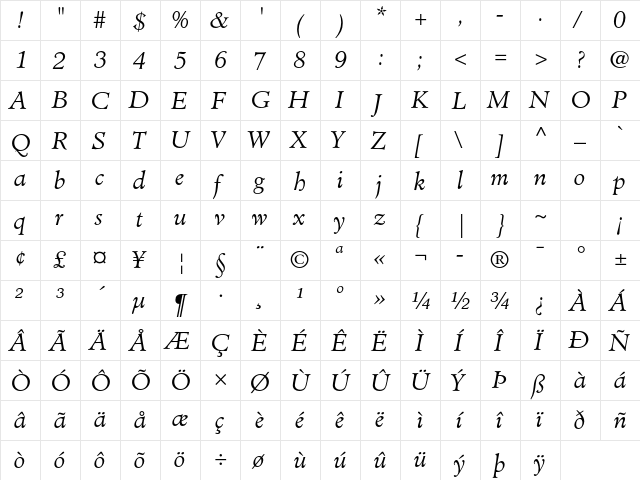
Minister Std Light Italic Font Preview
| Designer | M. Fahrenwaldt |
Design Context for Minister Std Typeface
Minister Std takes a measured approach to typography — its balanced proportions and neutral character make it a reliable workhorse for both digital and print work. The dynamic lean of this cut emphasises speed and emphasis in any layout. Its slender proportions lend an understated elegance to any composition.